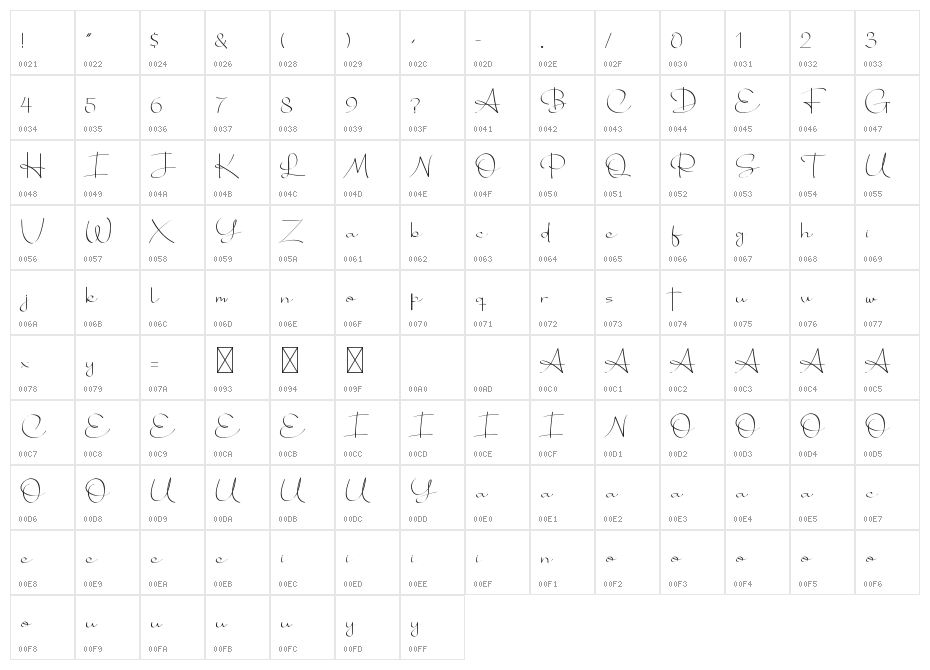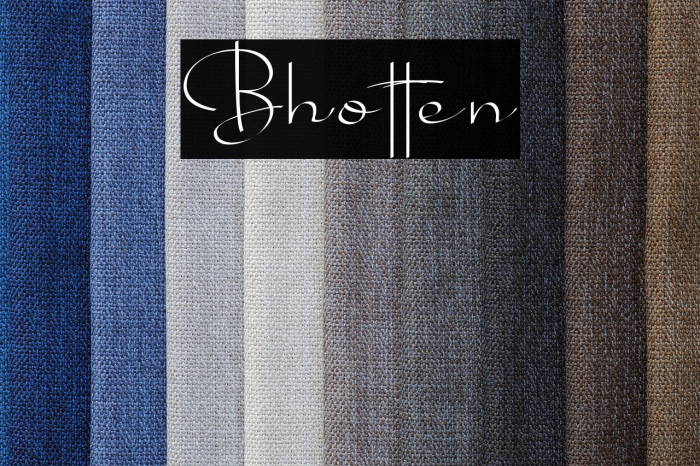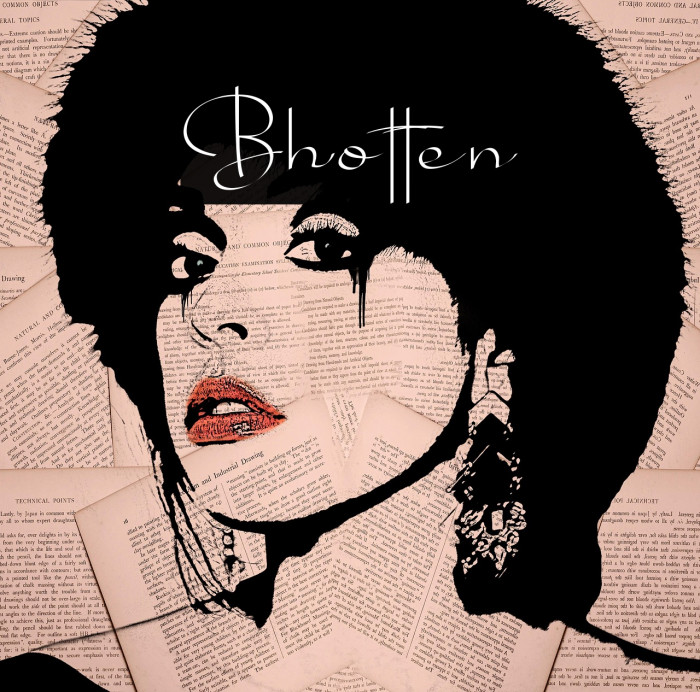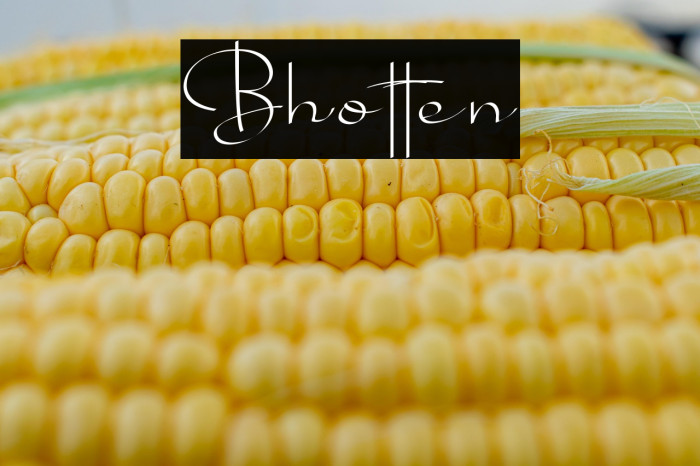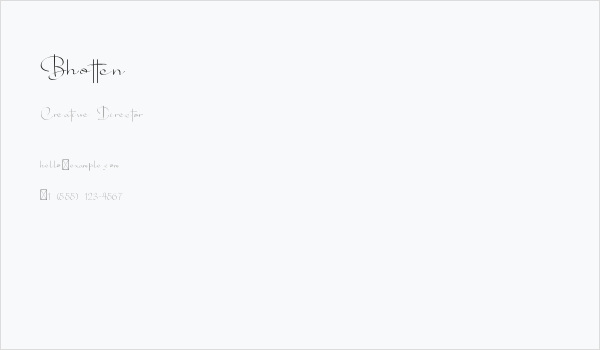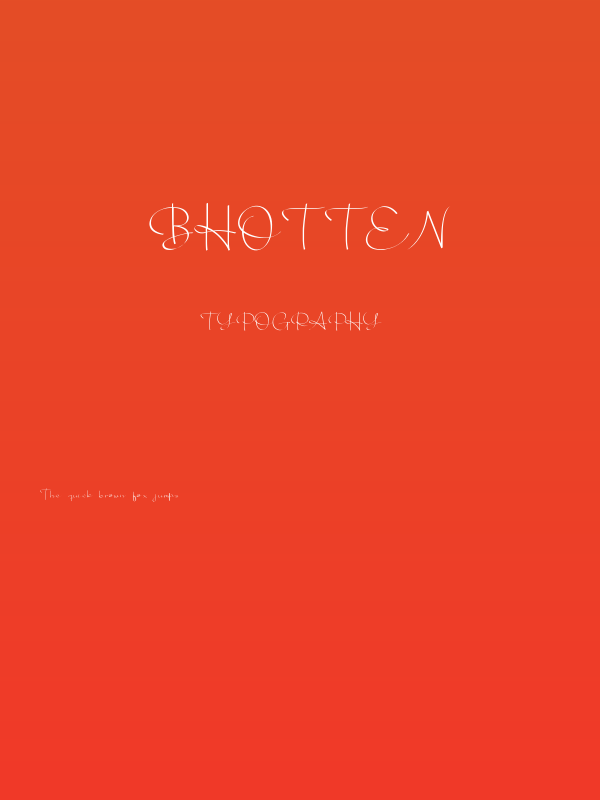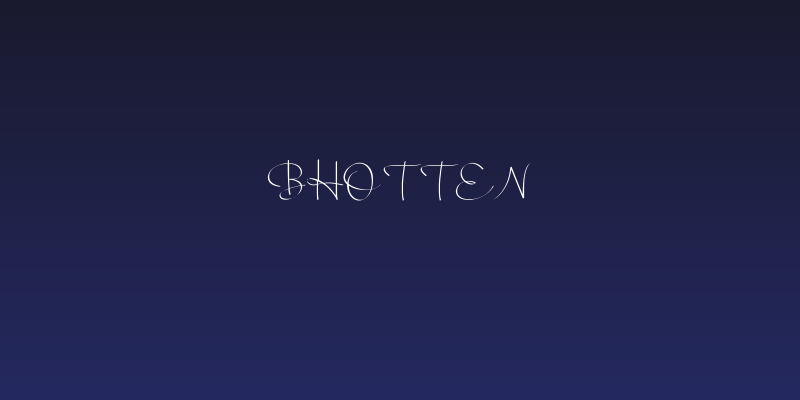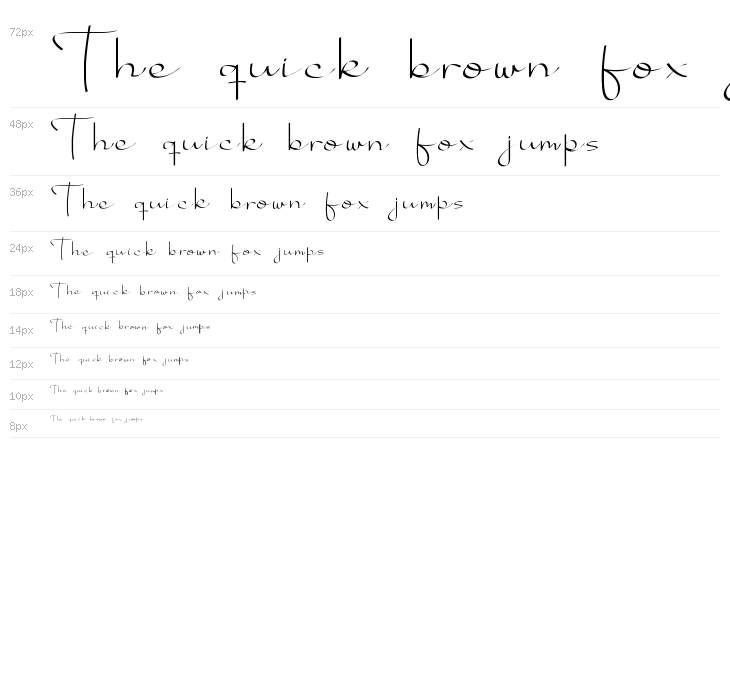
Bhotten Font
Bhotten Description
A delicate and elegant script font with flowing, connected letters and a calligraphic style.
| Overall Style | Elegant, Calligraphic |
| Proposed Projects | Wedding invitations, elegant branding, personal stationery. |